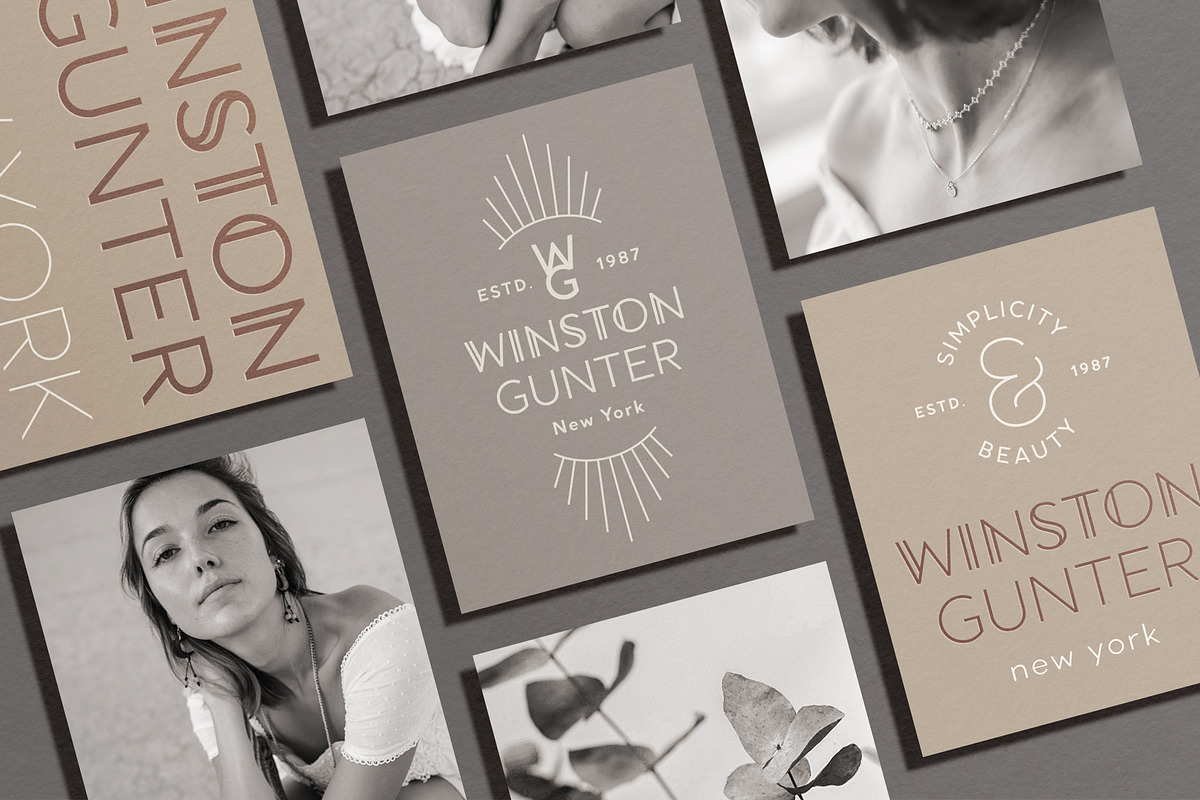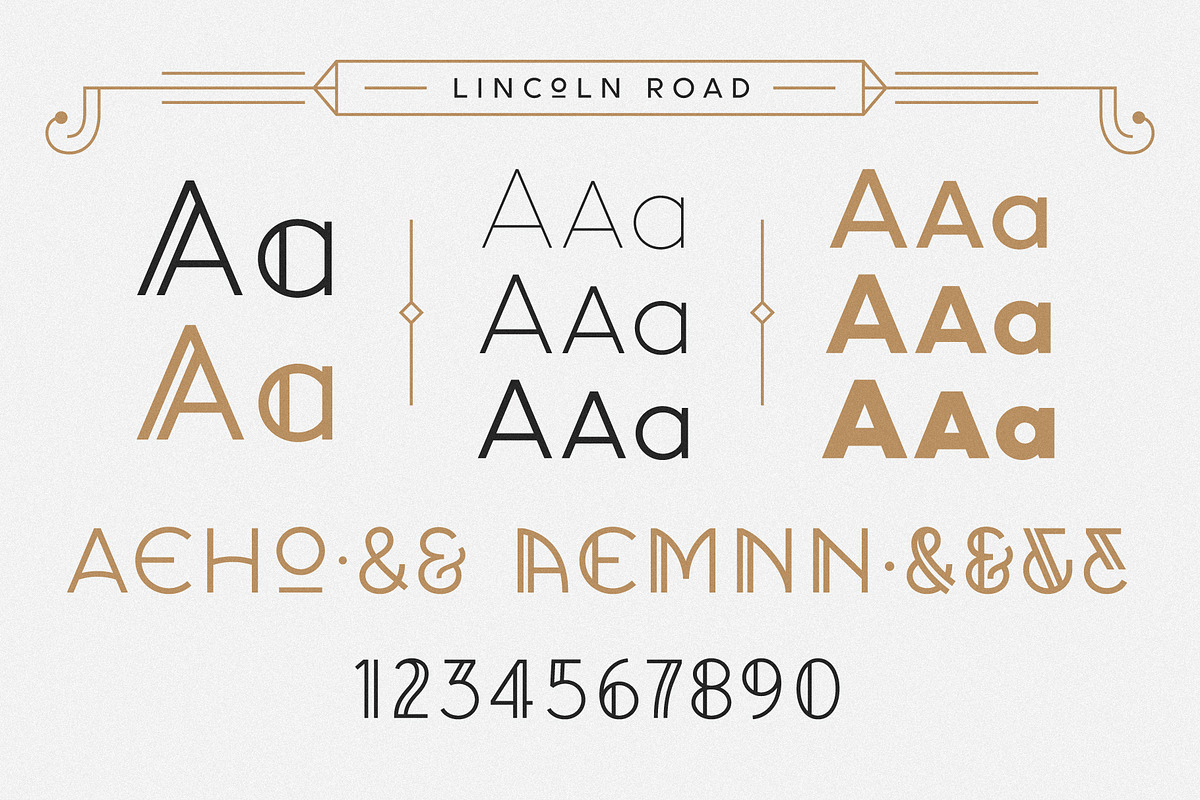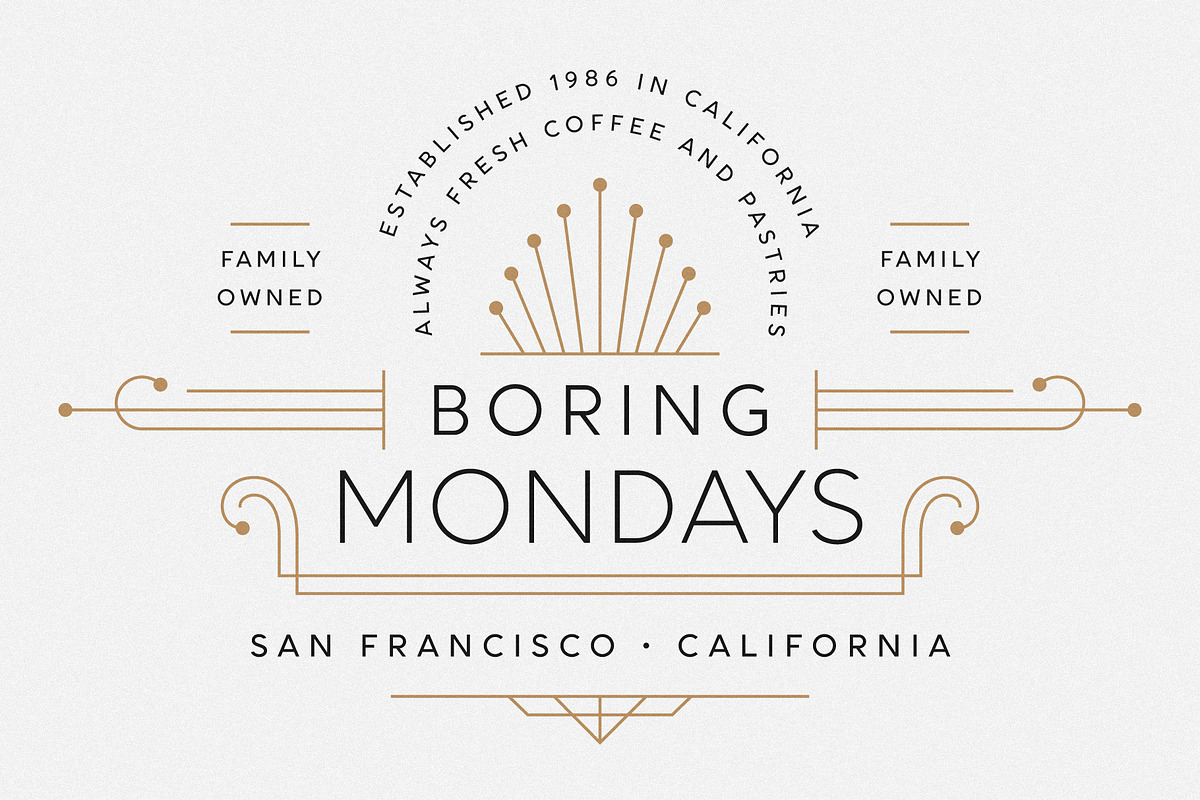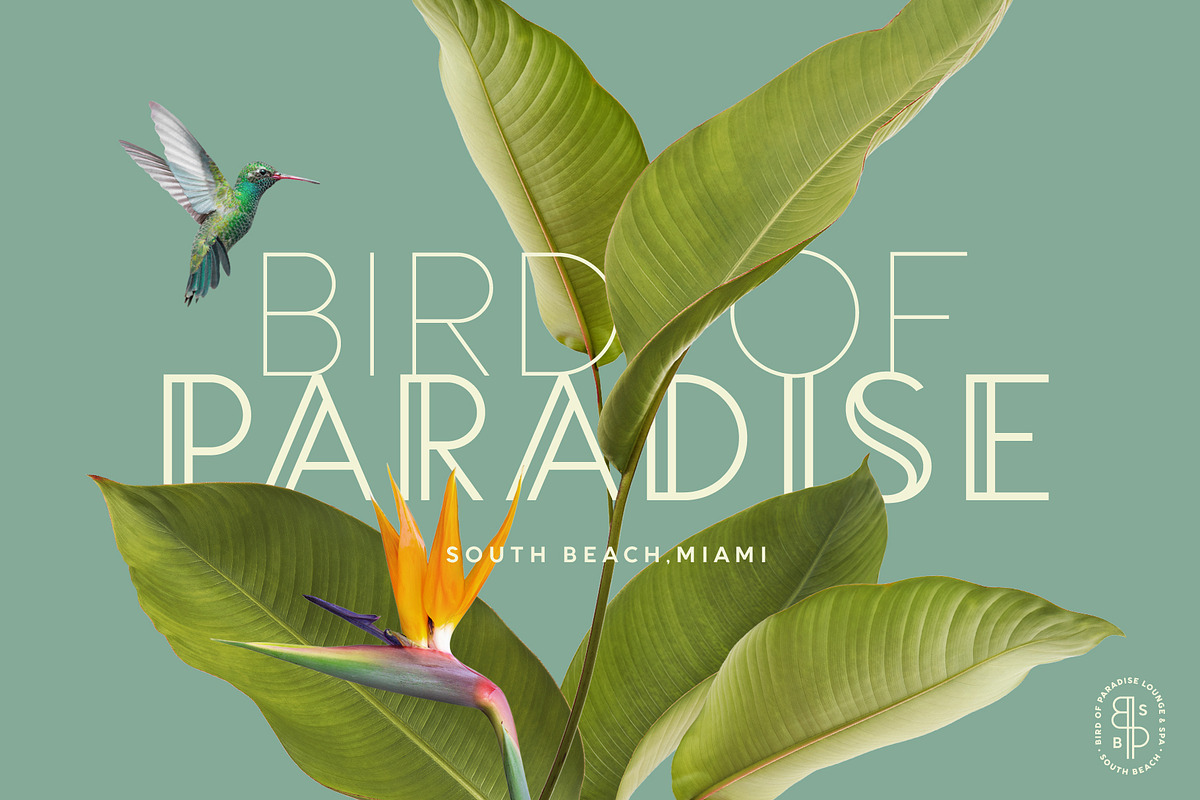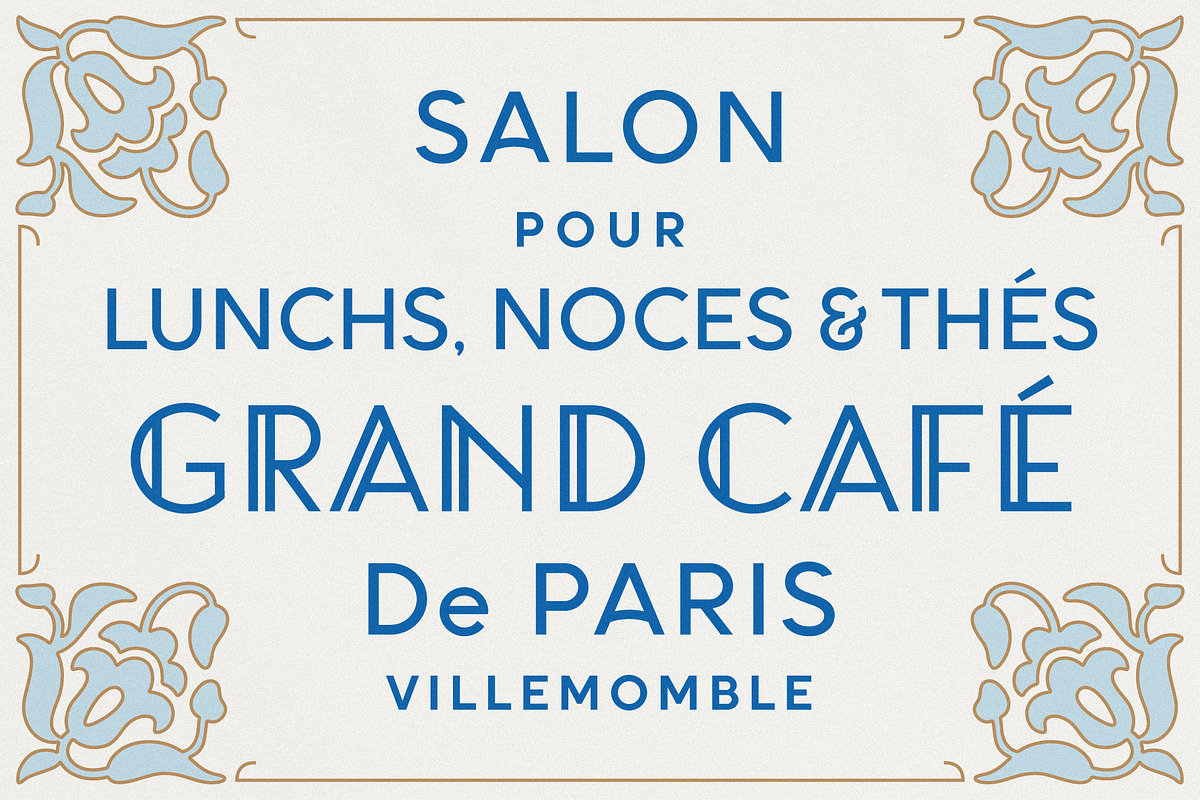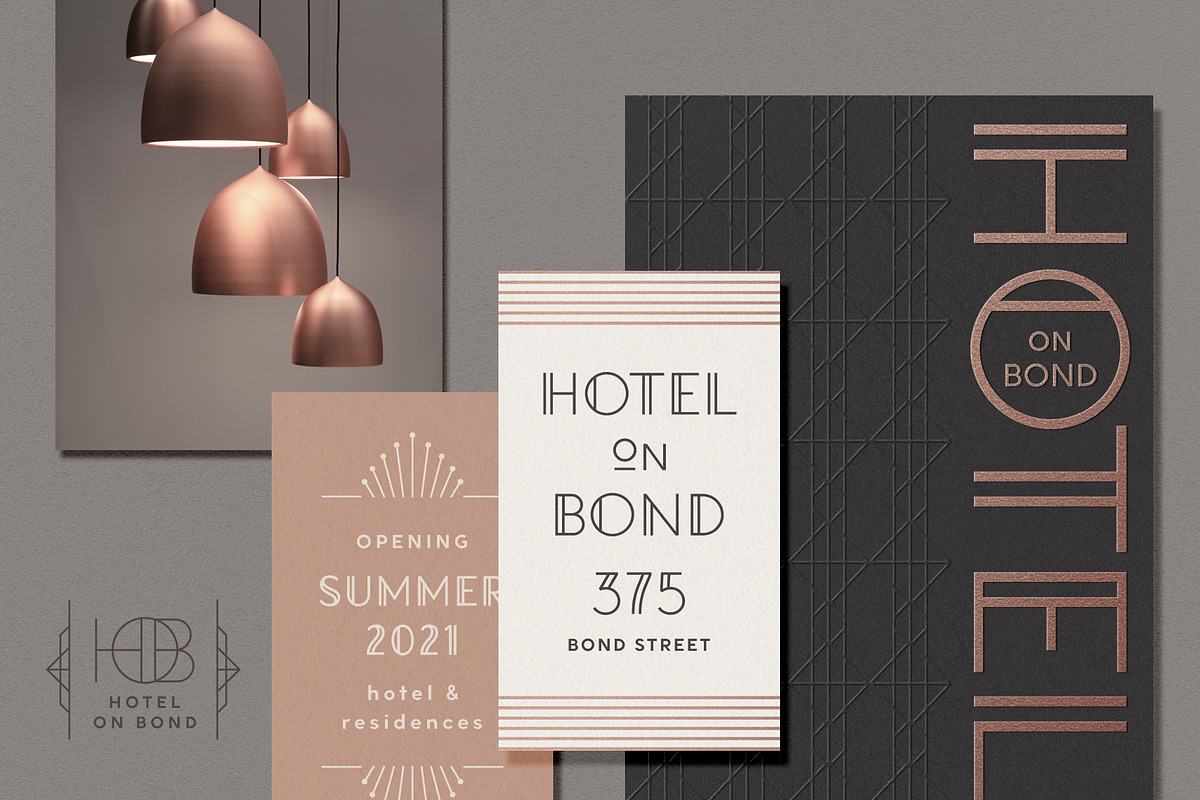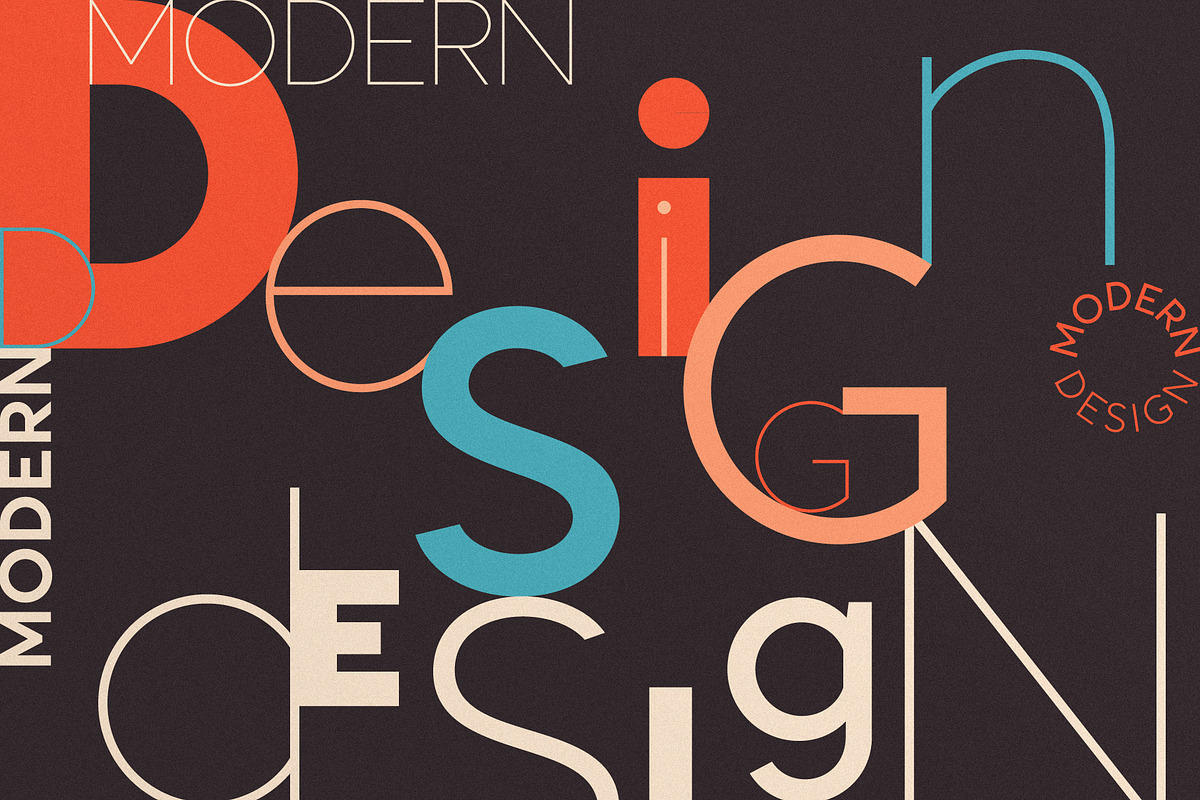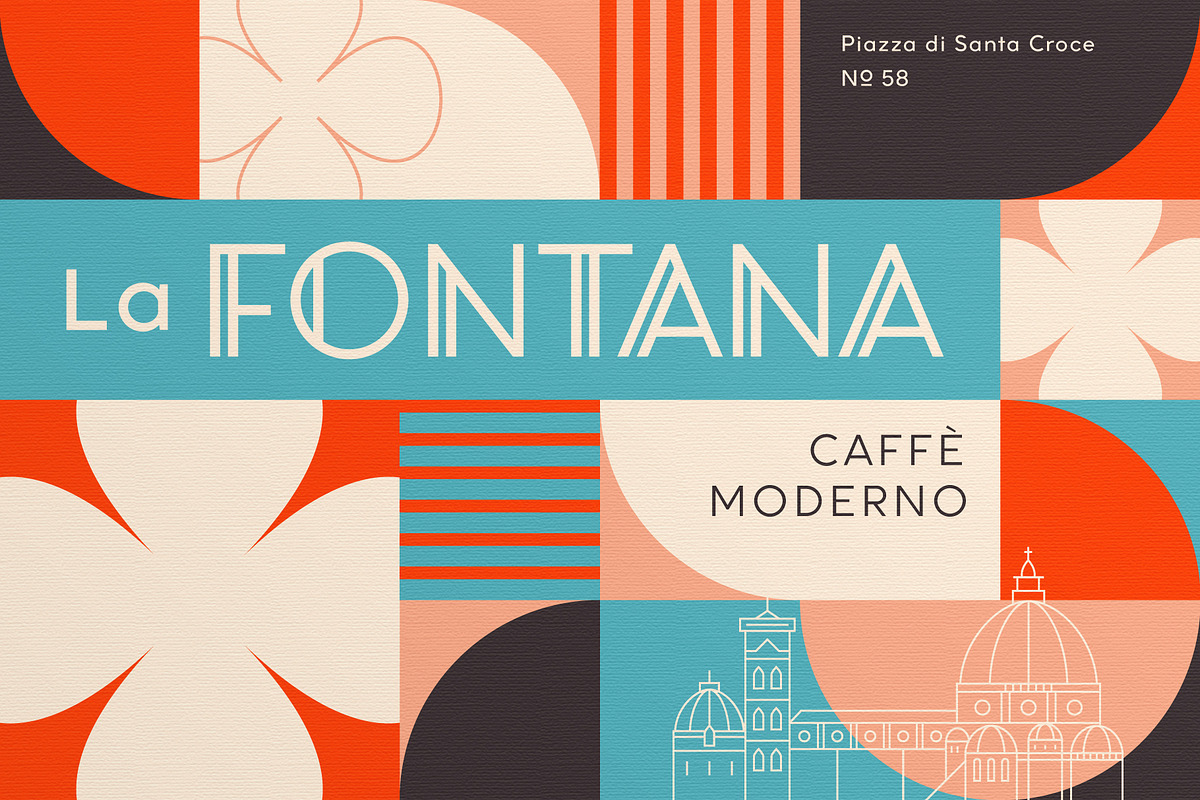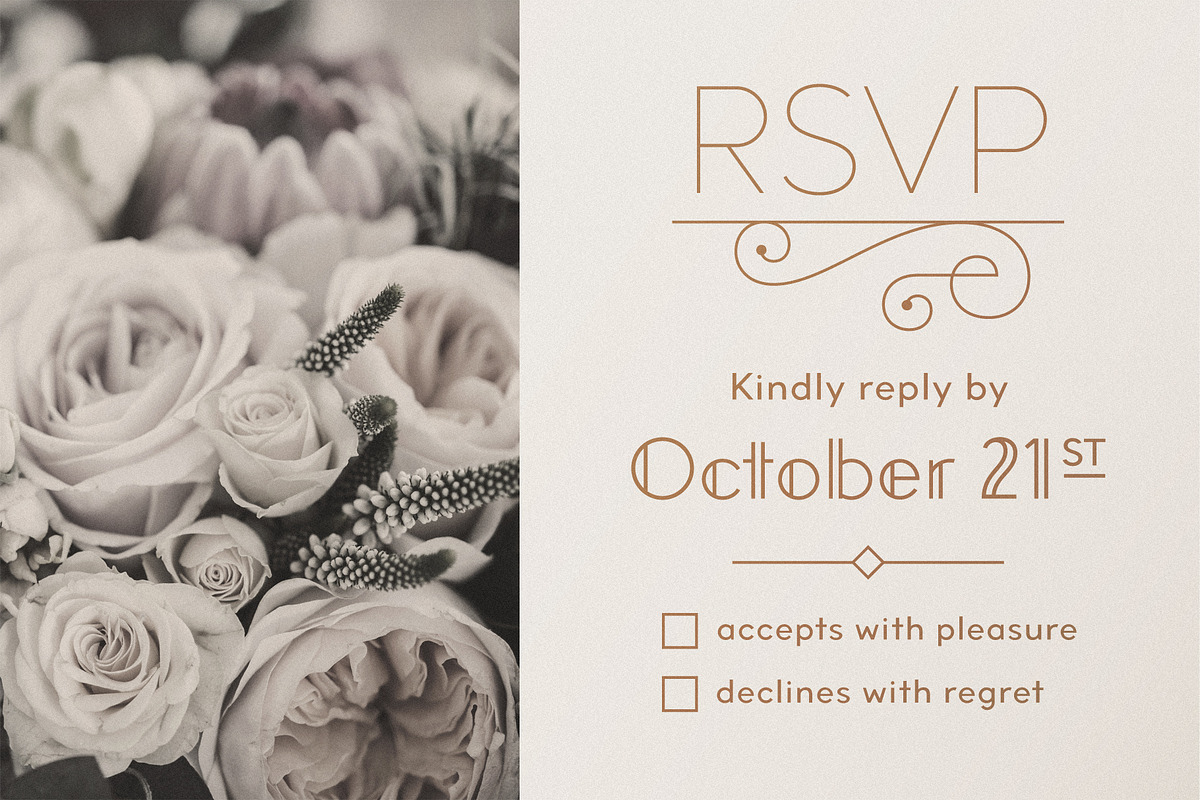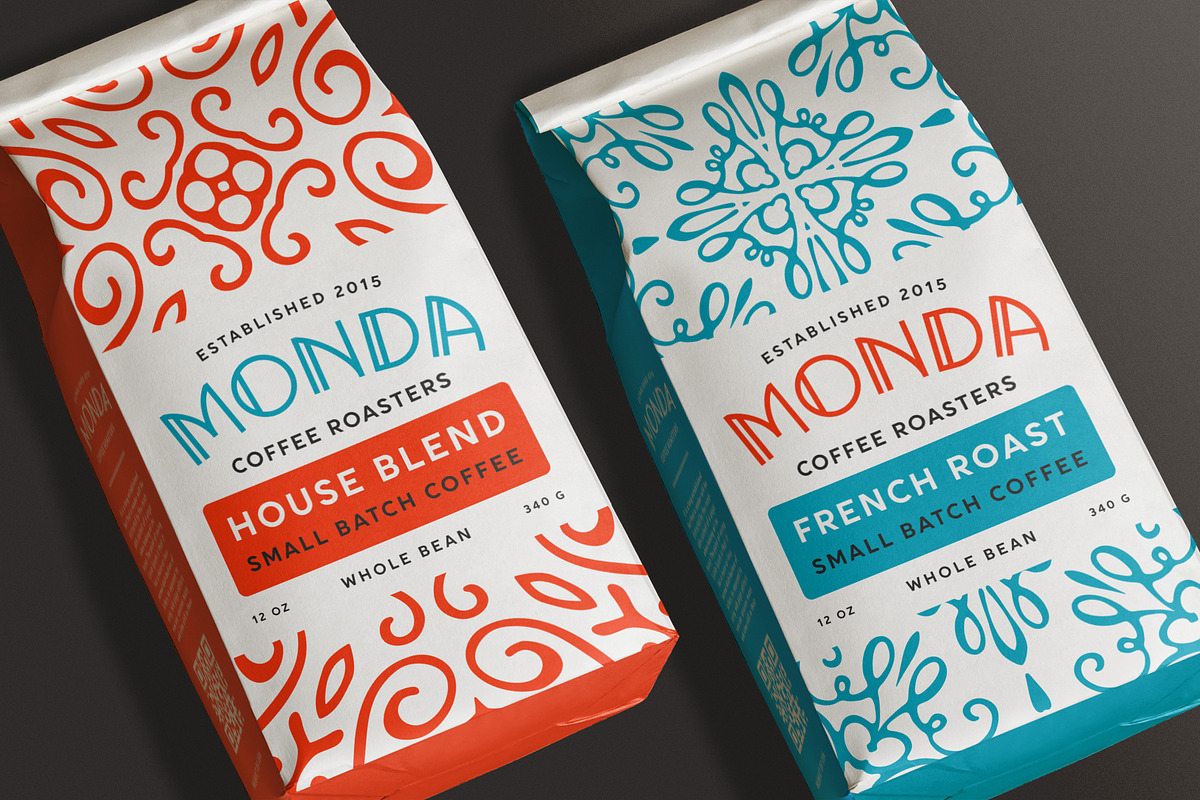
Lincoln Road Font Collection
Introducing our new Lincoln Road Font Collection with 12 Bonus Logos and 40 Frames A family of 8 fonts including 2 weights of Deco Sans and 6 weights of a coordinating geometric Sans family. Each Deco weight has a corresponding Sans style.
Lincoln Road is inspired by Art Deco styles, but is a modern interpretation - in other words - not too deco. Lincoln Road works for modern projects that need a hint of a decorative look and also can be used for more of a vintage vibe. Check out the previews to see some of the ways you can use this family.